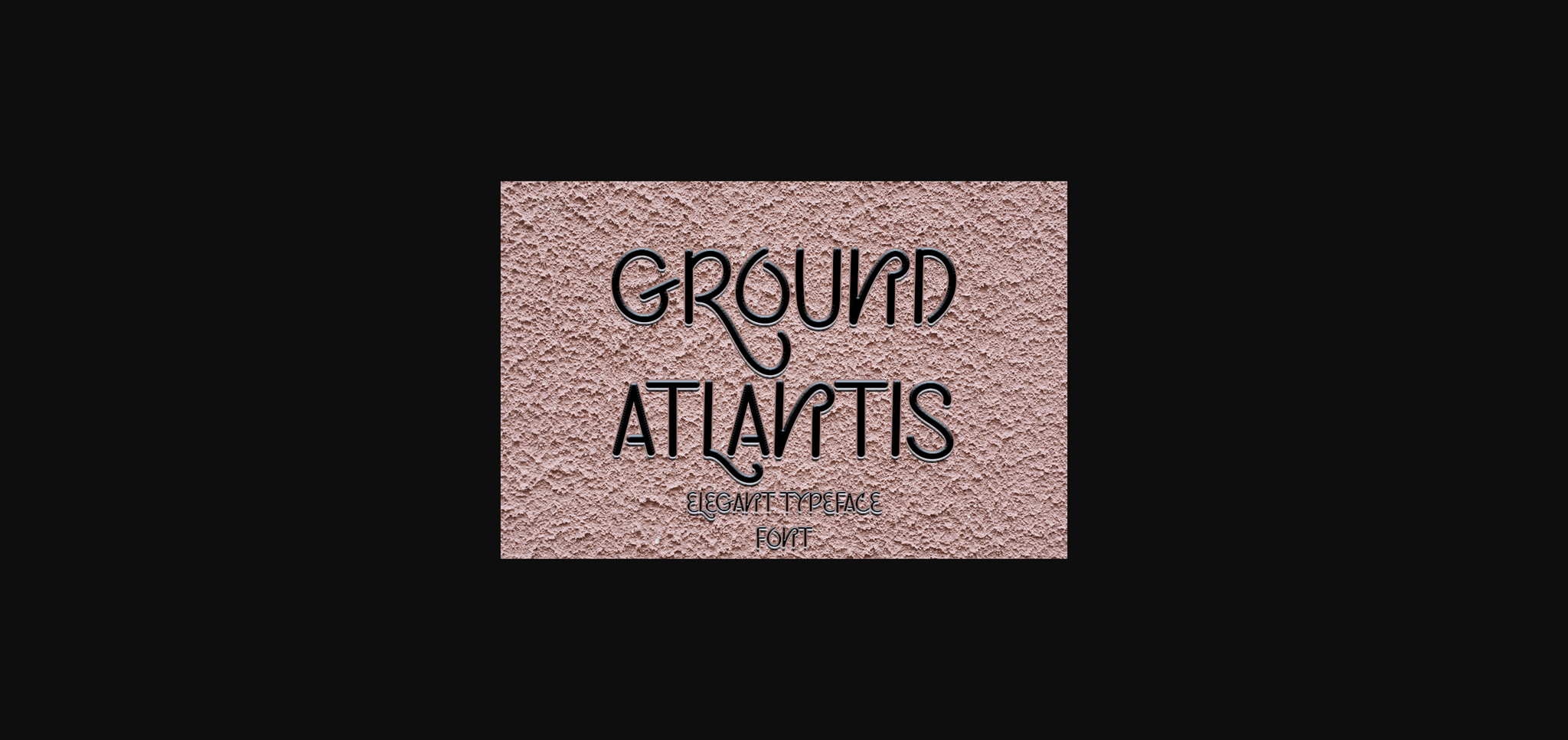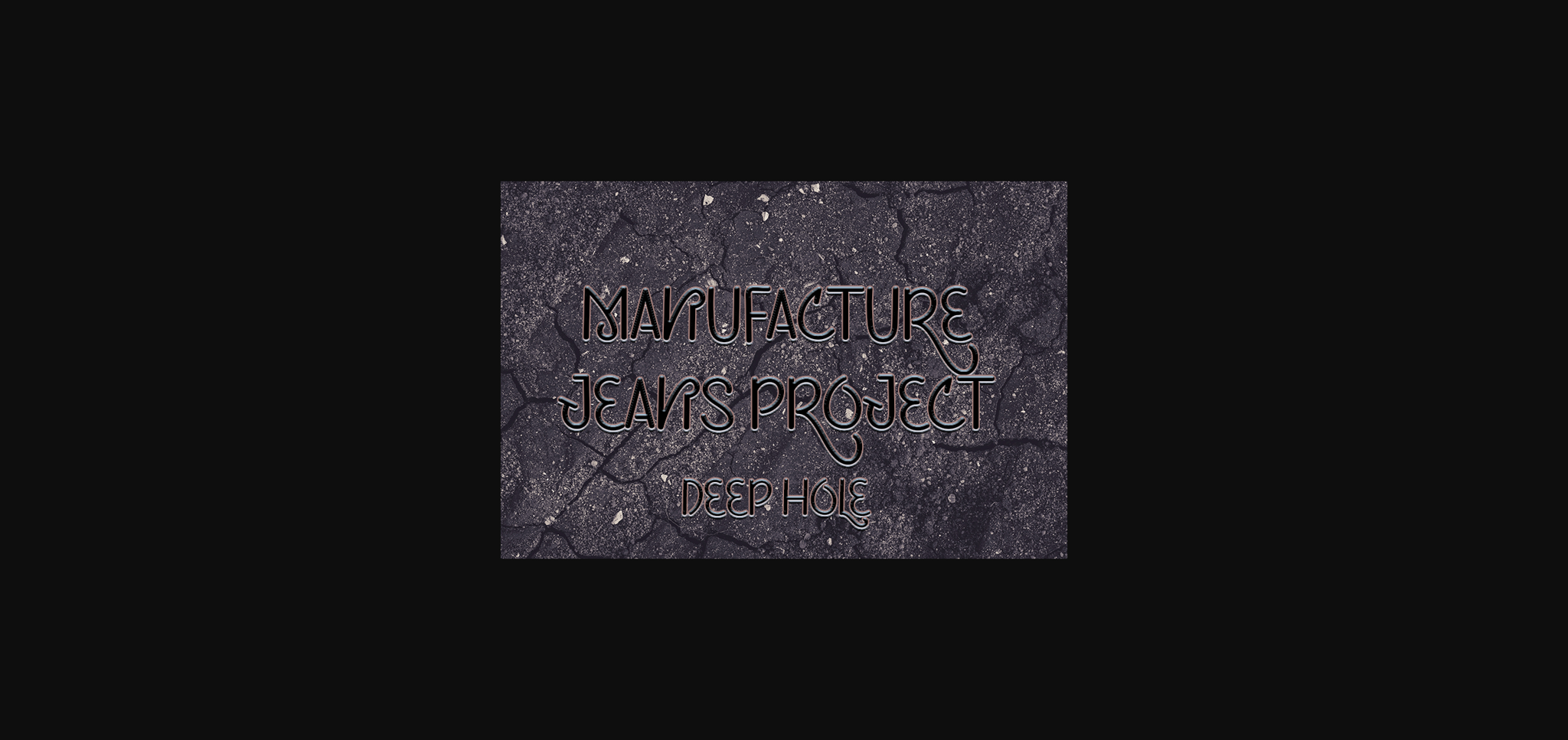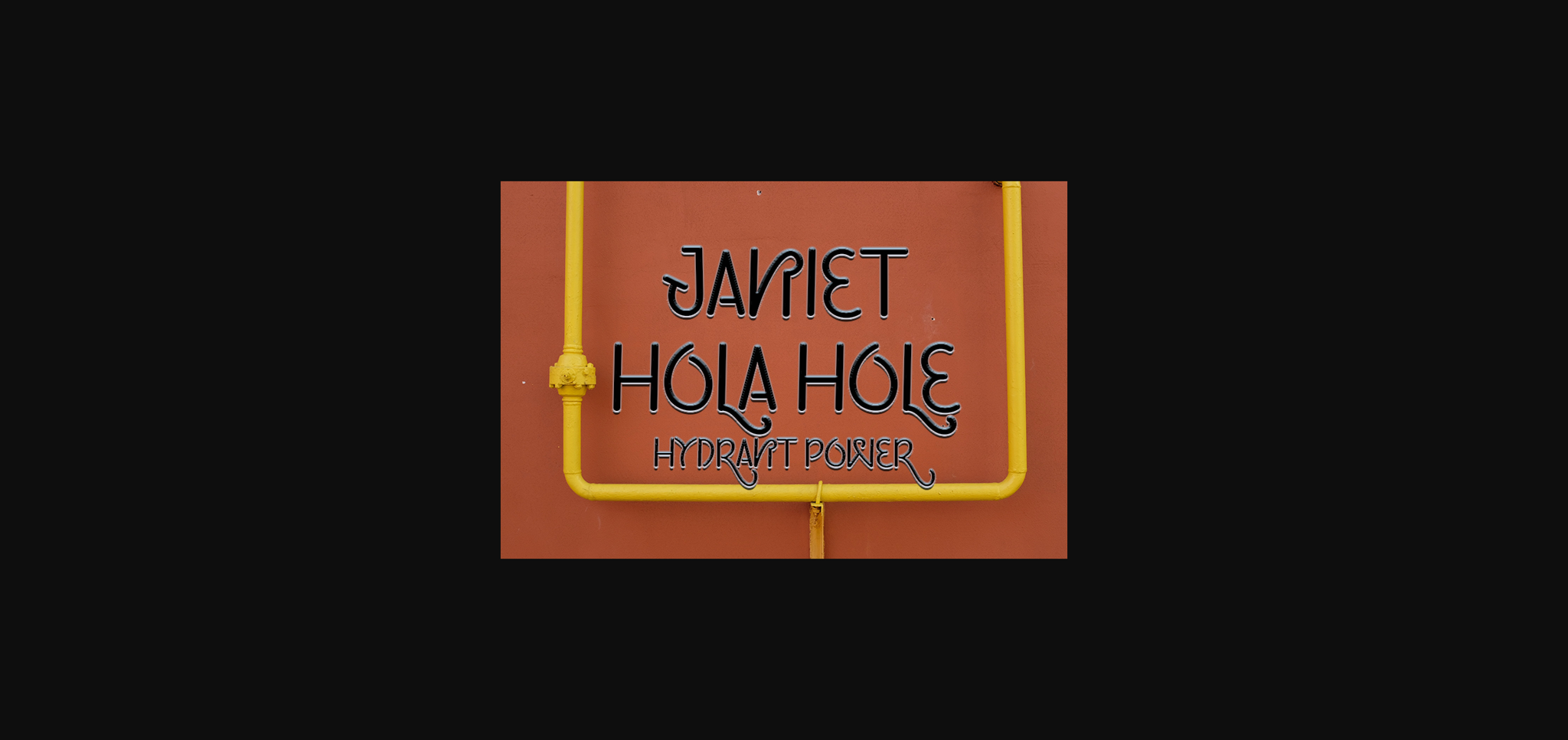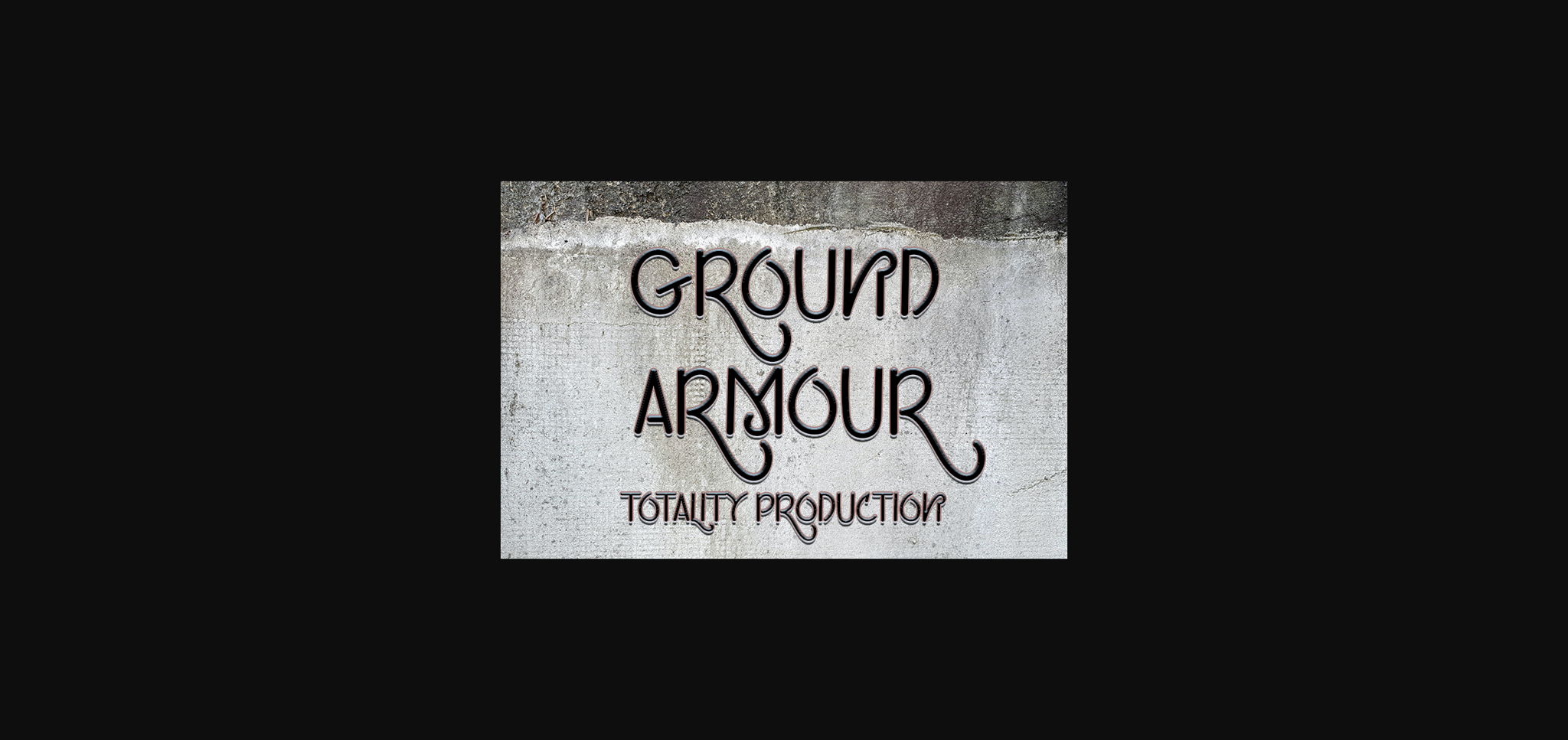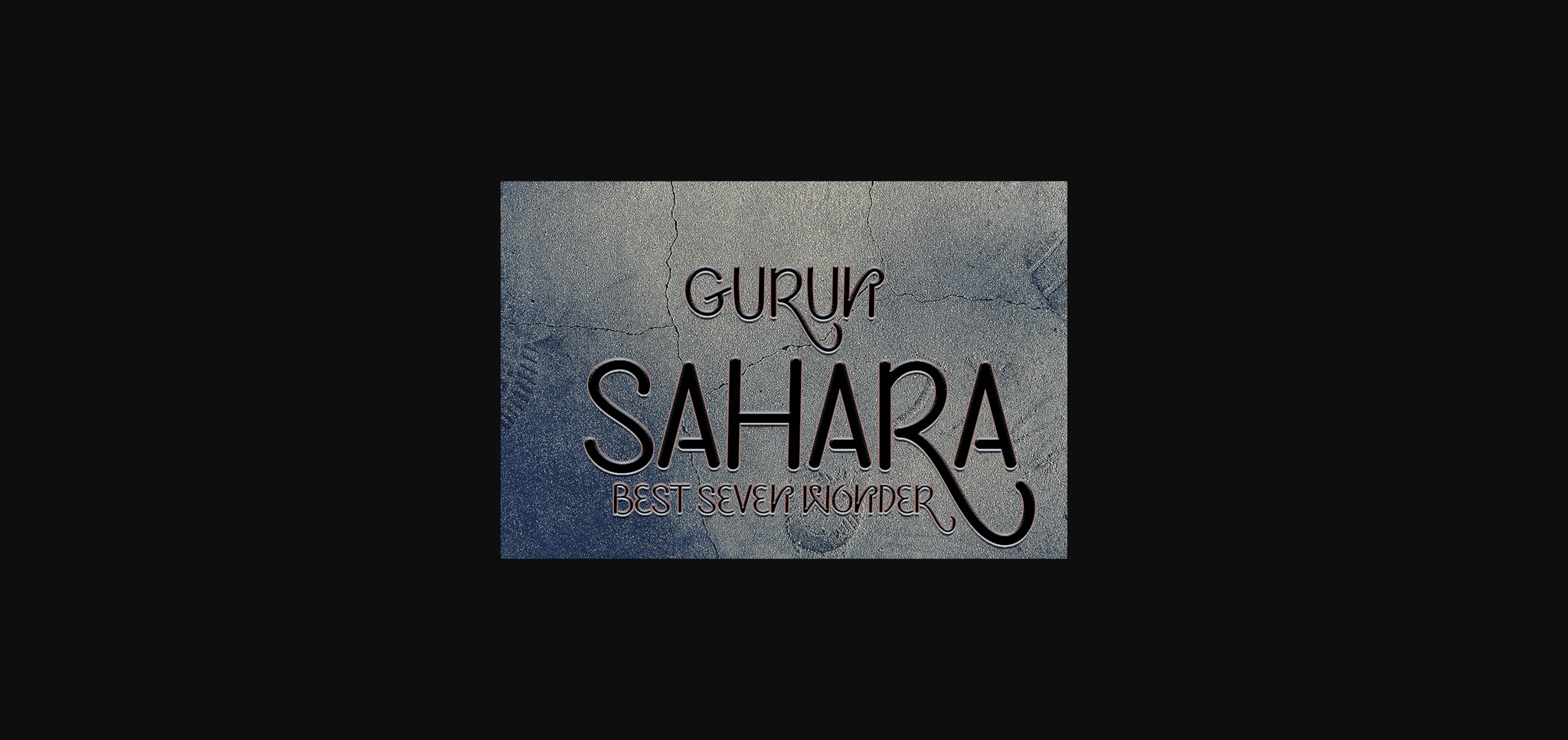
About Ground Atlantis Font
Ground Atlantis is an elegant and neat sans serif font. It can easily be matched to an incredibly large set of projects, so add it to your creative ideas and notice how it makes them stand out!